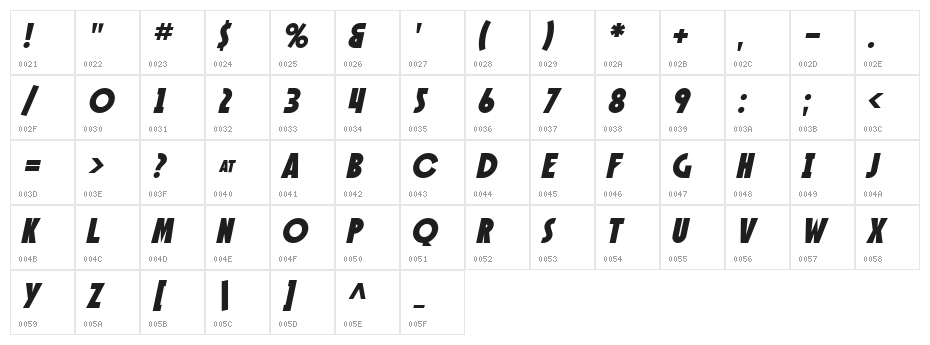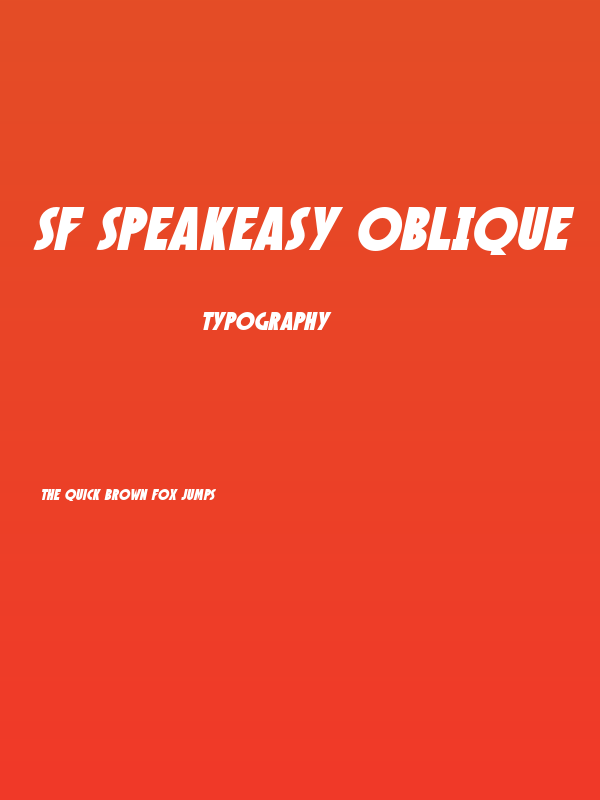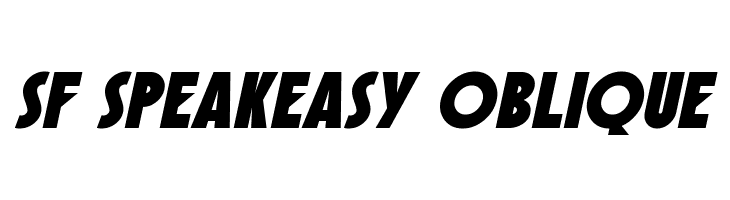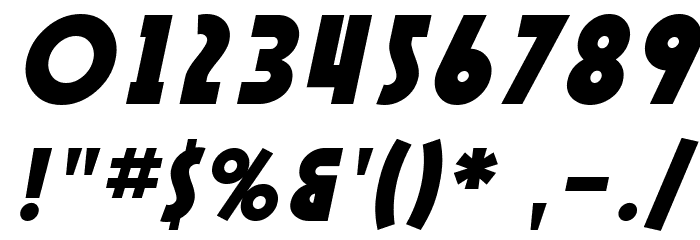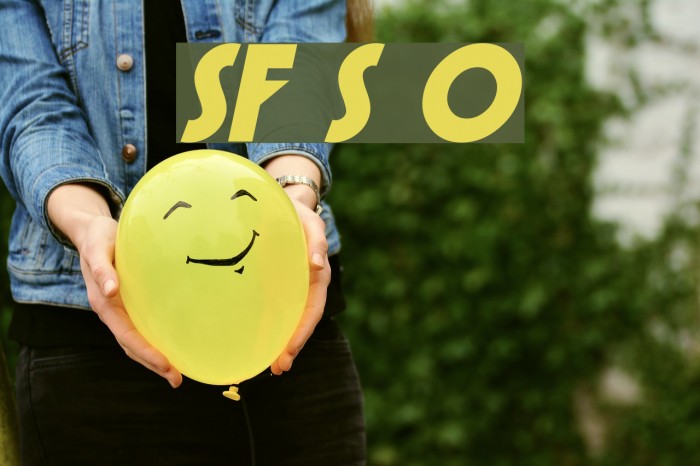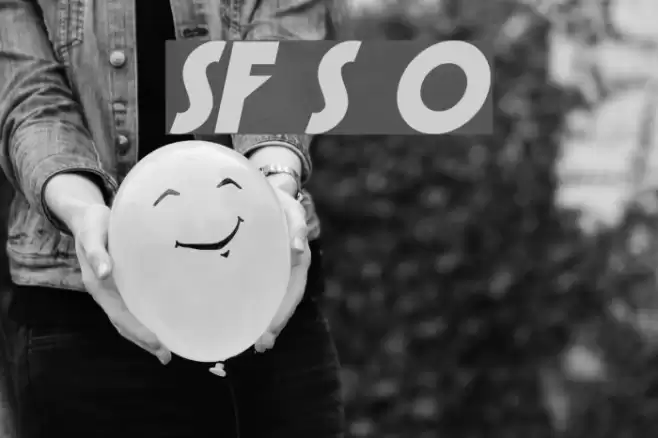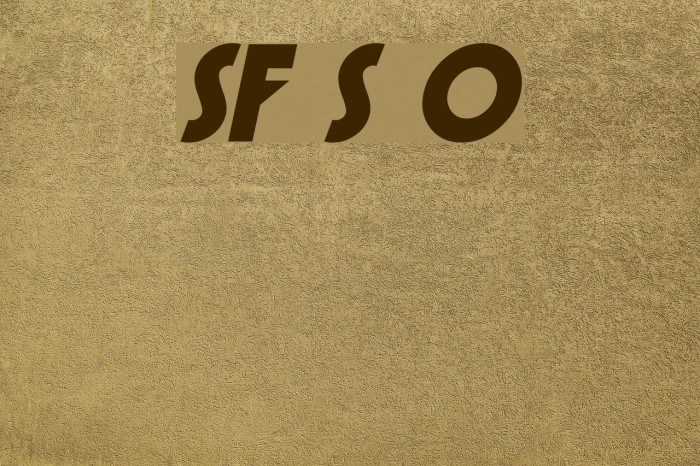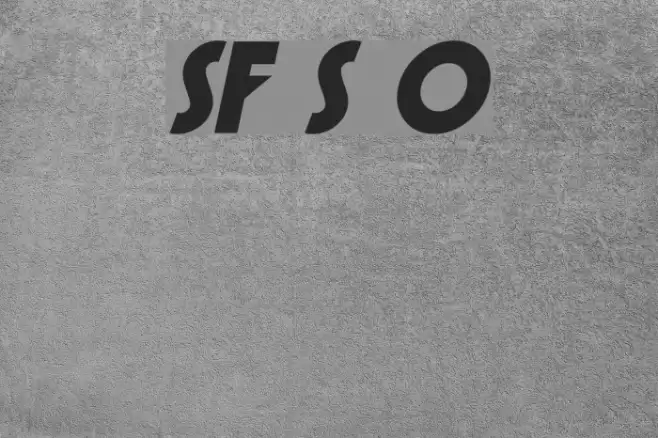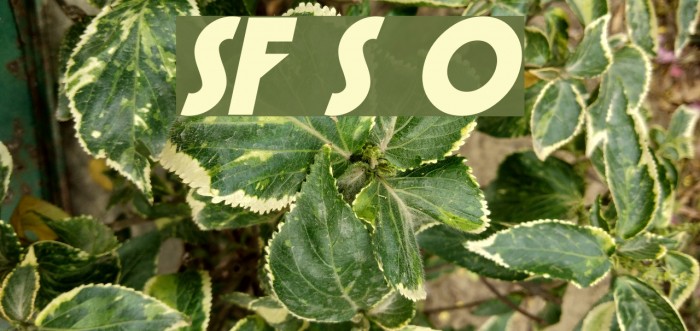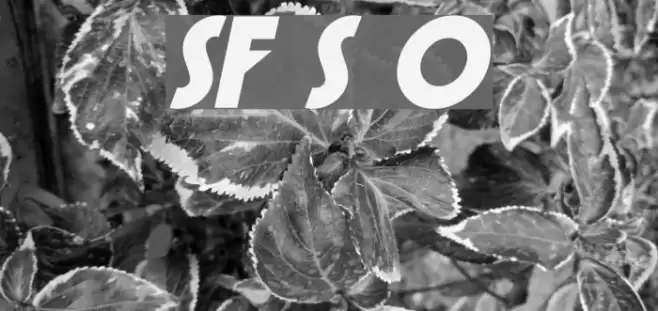
SF Speakeasy Oblique Font
SF Speakeasy Oblique Description
This font features a bold and dynamic style with a distinctive oblique slant, giving it a sense of movement and energy. The characters are thick and robust, with sharp angles and a slightly condensed appearance. The uppercase letters are particularly striking, with a strong presence that commands attention. The lowercase letters maintain the same boldness, ensuring consistency across text. The numerals are equally bold, making them stand out clearly. Special characters are designed with the same attention to detail, ensuring they integrate seamlessly with the rest of the font. Overall, this font exudes a vintage yet modern vibe, perfect for making a statement.
| Width | Condensed |
| Overall Style | Vintage, Modern |
| Proposed Projects | Ideal for posters, logos, headlines, and branding materials that require a strong, eye-catching font. |